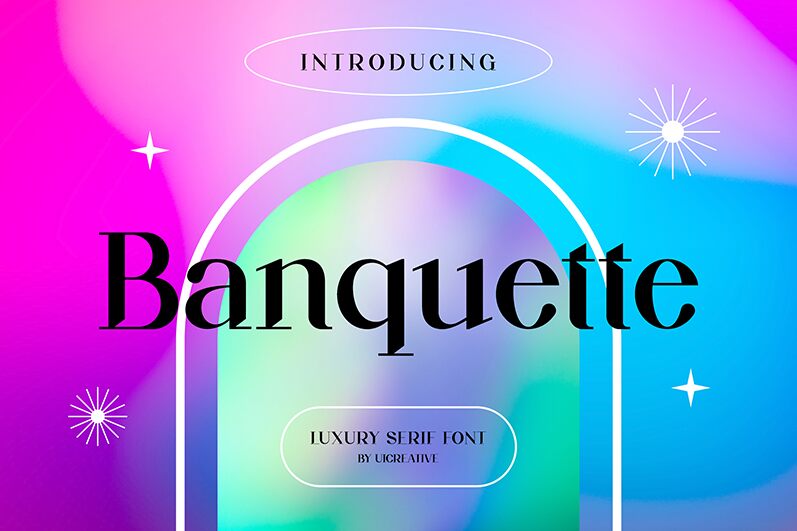
Banquette
Banquette font, designed by UI Creative, is a free serif font with elegant and sophisticated visuals. Taking inspiration from traditional classic typefaces, the font has refined shapes and delicate details that suit perfectly luxurious projects. Still, the characters do not limit themselves to this category as they can upgrade other projects such as professional work.
Make use of this premium resource even in your branding design, stationery kits, invitations cards be it for weddings or other special events. It’s suitable as well for high-end magazine covers and content headings or web publications related to fashion. Use it in decorative prints also like posters!